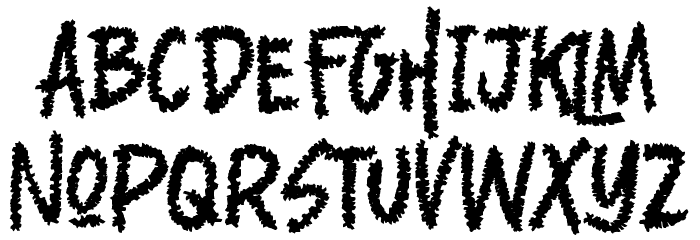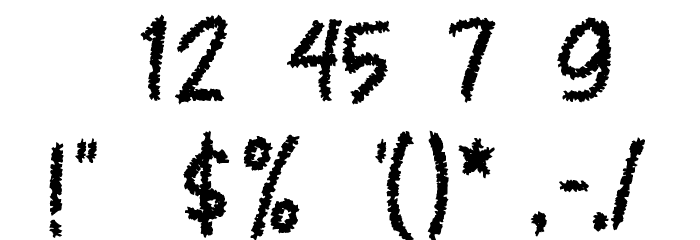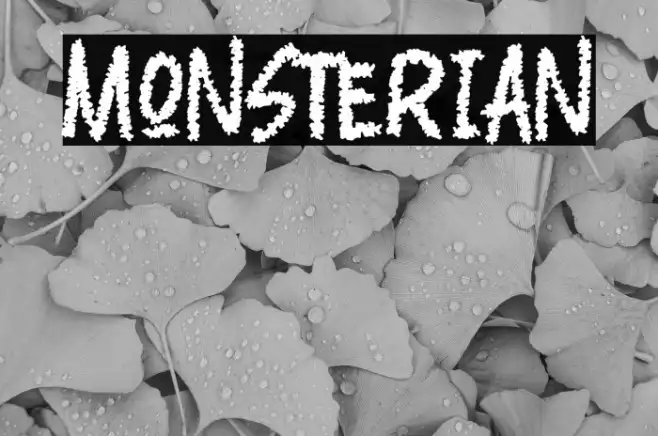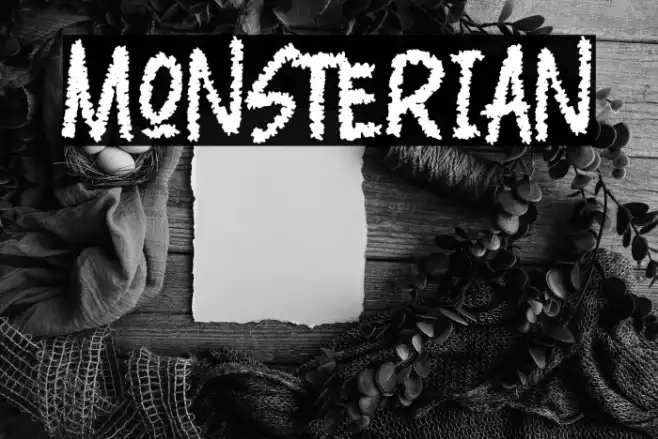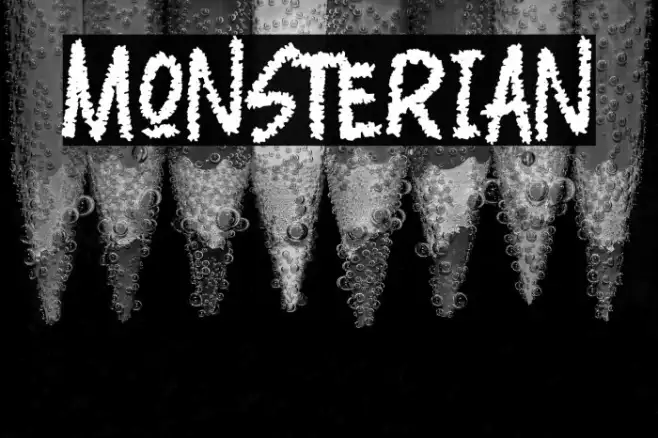
Monsterian Font
This font features a jagged, rough-edged style that evokes a sense of chaos and energy. The characters are bold and irregular, with a hand-drawn appearance that suggests a playful yet edgy aesthetic. The uppercase and lowercase letters maintain a consistent height, contributing to a cohesive look despite the erratic outlines. Numbers and special characters follow the same design principles, ensuring uniformity across all glyphs. The font's unique texture makes it stand out, ideal for projects that require a distinctive and unconventional typeface.
A jagged, energetic font with a hand-drawn, chaotic style.
- Font: Monsterian
- Proposed Projects: Perfect for Halloween-themed designs, edgy posters, album covers, or any project needing a bold, unconventional typeface.